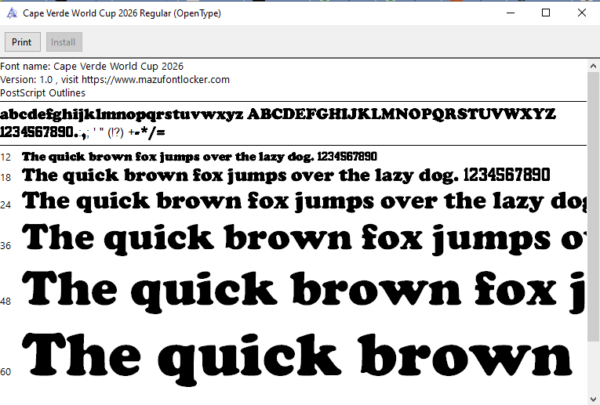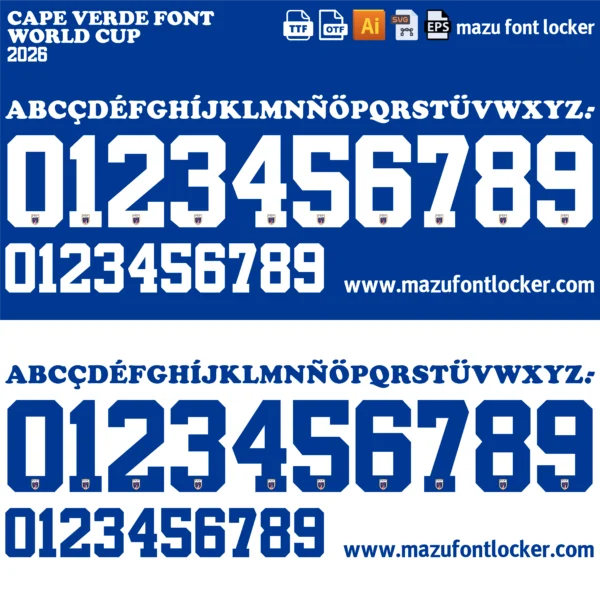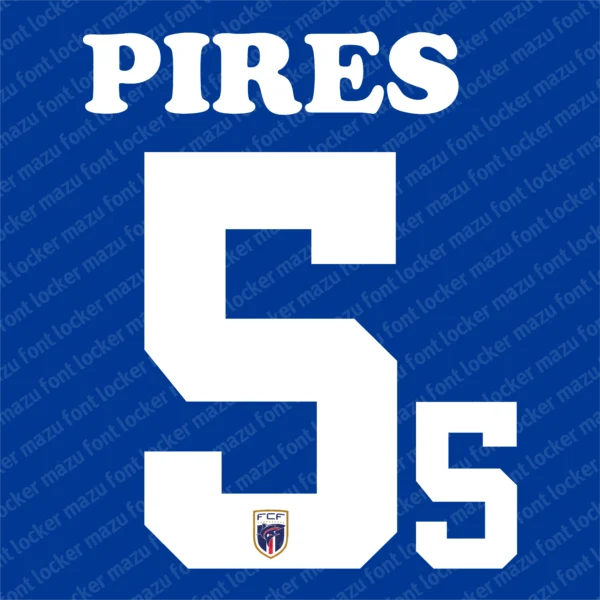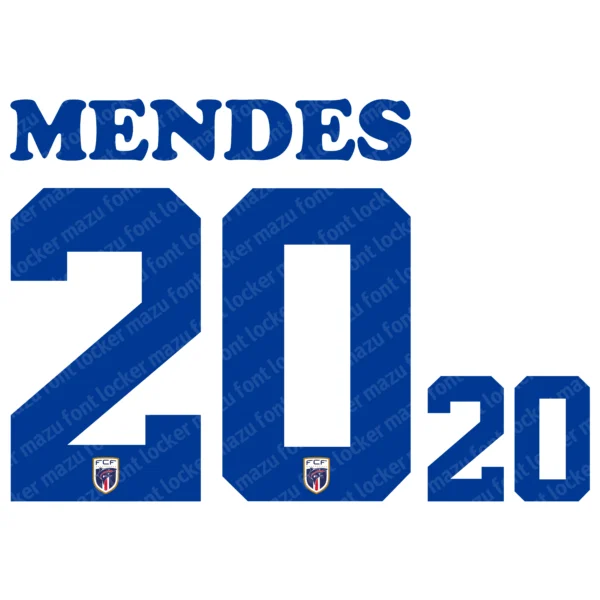
Cape Verde World Cup 2026 Font Vector – Heroic Blue Sharks Masterpiece
This font captures the bold, fearless, vibrant, and ultra-premium lettering that perfectly reflects Cape Verde’s iconic African island heritage combined with the fierce, unstoppable, and magical spirit of the Tubarões Azuis — delivering unmatched pride, raw passion, elite craftsmanship, and pure Blue Shark fire for premium jersey mockups, epic football designs, spectacular sports visuals, standout fan creations, and professional branding projects.
Cape Verde World Cup 2026 Font Vector – Authentic Tubarões Azuis Typeface
The Cape Verde World Cup 2026 Font Vector is a premium typeface that accurately recreates the official match lettering worn by the Cape Verde national team during their historic debut at the 2026 FIFA World Cup. This high-quality vector font kit captures the bold, vibrant, and resilient typography that represents the island nation’s rich heritage, fighting spirit, and passionate football identity of the Tubarões Azuis.
Designed for professional designers and devoted Cape Verde supporters, the Cape Verde World Cup 2026 Font Vector delivers perfect authenticity for creating realistic jersey mockups, fan merchandise, matchday posters, social media graphics, and African football content. It pairs beautifully with the iconic blue Cape Verde kit, one of the most recognizable national team identities in African football.
This font stands out because of its sharp vector precision and strong national identity. Every letter and number is crafted to match the exact style used on the players’ shirts during Cape Verde’s maiden World Cup campaign. Whether you are creating realistic kit templates or exciting Blue Sharks-themed content, the Cape Verde World Cup 2026 Font Vector gives your designs that authentic island pride and fighting spirit.
The letterforms in the Cape Verde World Cup 2026 Font Vector are bold, dynamic, and highly readable. The strokes feature strong geometric construction combined with energetic athletic styling, creating a powerful appearance that stands out on jerseys while preserving Cape Verde’s legendary football journey and Creole passion.
The numerals feature robust curves and clean, sharp edges, delivering a confident and premium appearance. This vector design ensures flawless scalability and excellent legibility across both print and digital applications.
• Full uppercase A–Z and numbers 0–9 in authentic Cape Verde World Cup 2026 style
• Special Cape Verde crest glyph – Press the “:” (colon) symbol to insert the Cape Verde crest
• Multilingual Latin character support including Portuguese accents and special characters
• Includes the exact crest glyph placement used beneath player numbers
The Cape Verde World Cup 2026 Font Vector is an independently designed typeface package. It is carefully crafted to replicate the official shirt lettering style used during Cape Verde’s 2026 World Cup campaign. This font kit is perfect for creative projects, fan edits, football-inspired artwork, and custom sports graphics.